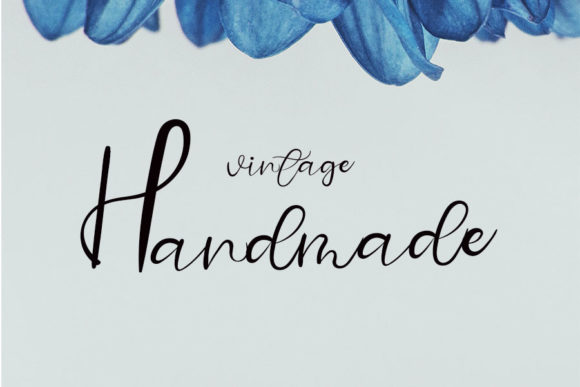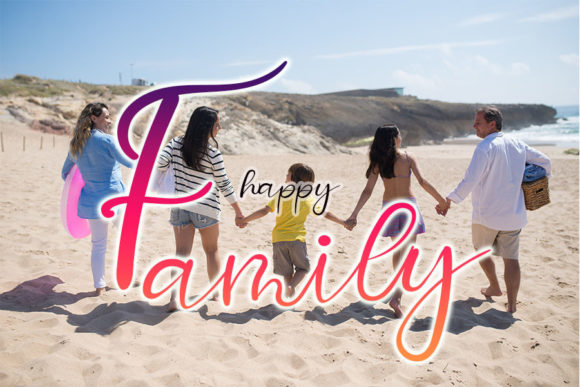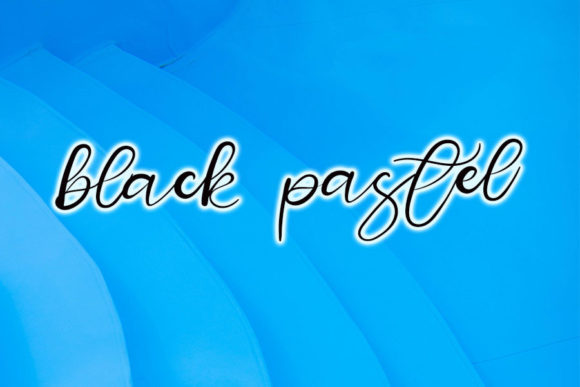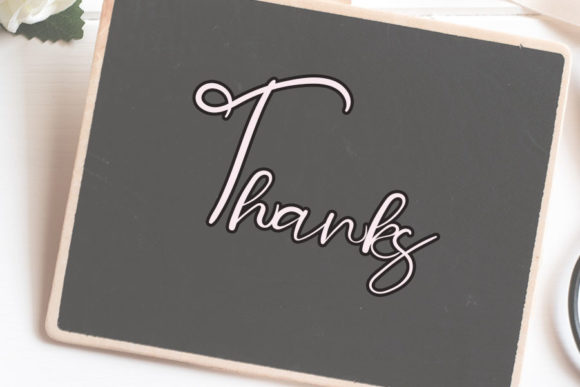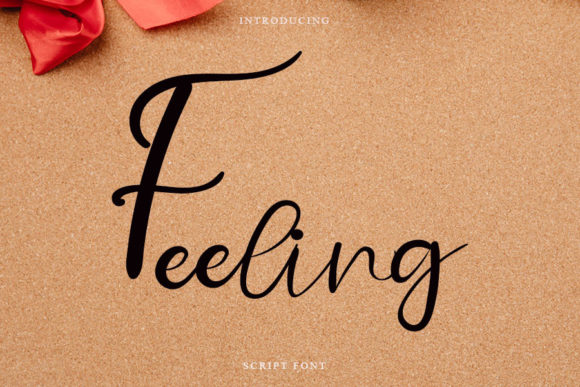
Introducing Feeling Font: Elevate Your Designs with Delicate Elegance
Are you tired of using the same old fonts in your designs? Look no further than Feeling Font, a delicate and flowing script font that is sure to elevate your creations. With its elegant and refined aesthetic, Feeling Font is the perfect addition to any designer’s font library.
The Beauty of Feeling Font
Feeling Font is a script font that exudes a sense of sophistication and refinement. Its delicate lines and flowing curves make it perfect for a wide range of design applications, from wedding invitations and branding materials to packaging and digital media. Whether you’re looking to add a touch of elegance to your designs or create a bold statement, Feeling Font is the perfect choice.
One of the best things about Feeling Font is its versatility. No matter the topic or theme of your design, this font will fit right in. From fashion and beauty to food and travel, Feeling Font’s elegant and refined aesthetic will add a touch of sophistication to any creation. Whether you’re designing for print or digital media, Feeling Font is the perfect choice.
Why Designers Love Feeling Font
So, why do designers love Feeling Font? For starters, its unique and elegant aesthetic sets it apart from more traditional fonts. Additionally, its versatility makes it perfect for a wide range of design applications. Here are just a few reasons why designers can’t get enough of Feeling Font:
- Elegant and refined aesthetic: Feeling Font’s delicate lines and flowing curves make it perfect for designs that require a touch of sophistication.
- Versatile: Whether you’re designing for print or digital media, Feeling Font will fit right in.
- Easy to read: Despite its delicate nature, Feeling Font is surprisingly easy to read, making it perfect for body text and headlines.
- Highly customizable: With a range of weights and styles, Feeling Font can be tailored to fit your design needs.
Tips for Using Feeling Font
Now that you know why designers love Feeling Font, here are a few tips for using it in your designs:
- Pair it with bold fonts: Feeling Font’s delicate aesthetic pairs perfectly with bold fonts, creating a striking contrast that’s sure to grab attention.
- Use it for headlines and titles: Feeling Font’s elegant aesthetic makes it perfect for headlines and titles, adding a touch of sophistication to any design.
- Experiment with colors: Feeling Font looks great in a range of colors, from soft pastels to bold brights.
In conclusion, Feeling Font is a delicate and flowing script font that is sure to elevate your designs. With its elegant and refined aesthetic, versatility, and ease of use, Feeling Font is the perfect addition to any designer’s font library. Whether you’re a seasoned pro or just starting out, Feeling Font is a must-have font that’s sure to take your designs to the next level.